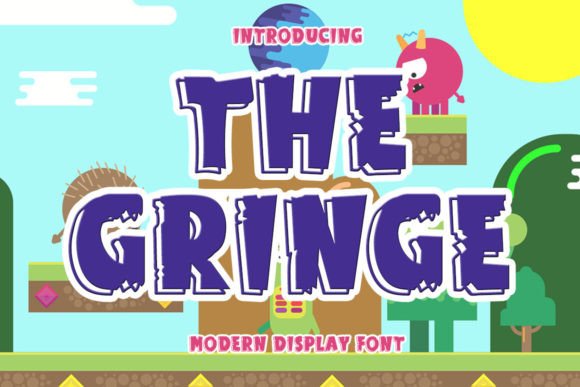
Dive into the world of sophistication and elegance with The Gringe Font, a display font family that exudes modern flair. Crafted by the visionary Eddygoodboy, this font is an artistic masterpiece designed to elevate your creative endeavors to new heights.
Unleash your imagination and let your designs flourish with The Gringe Font. Its meticulously crafted characters dance across the screen, captivating your audience with their sharp lines and refined curves. Express your individuality and make a statement with this font's distinctive charm.
Whether you're a seasoned designer or just starting your creative journey, The Gringe Font is your perfect companion. Its user-friendly nature makes it accessible to all, allowing you to effortlessly incorporate its beauty into your projects.
Step into the spotlight and let your designs shine with The Gringe Font. From eye-catching websites to captivating social media posts, this font adds a touch of luxury and sophistication to every project. Create brochures and invitation cards that leave a lasting impression, or design product packaging logos that exude elegance.
Don't settle for ordinary fonts. Embrace the extraordinary with The Gringe Font. Experience the difference sophistication makes and see your designs transform into works of art.